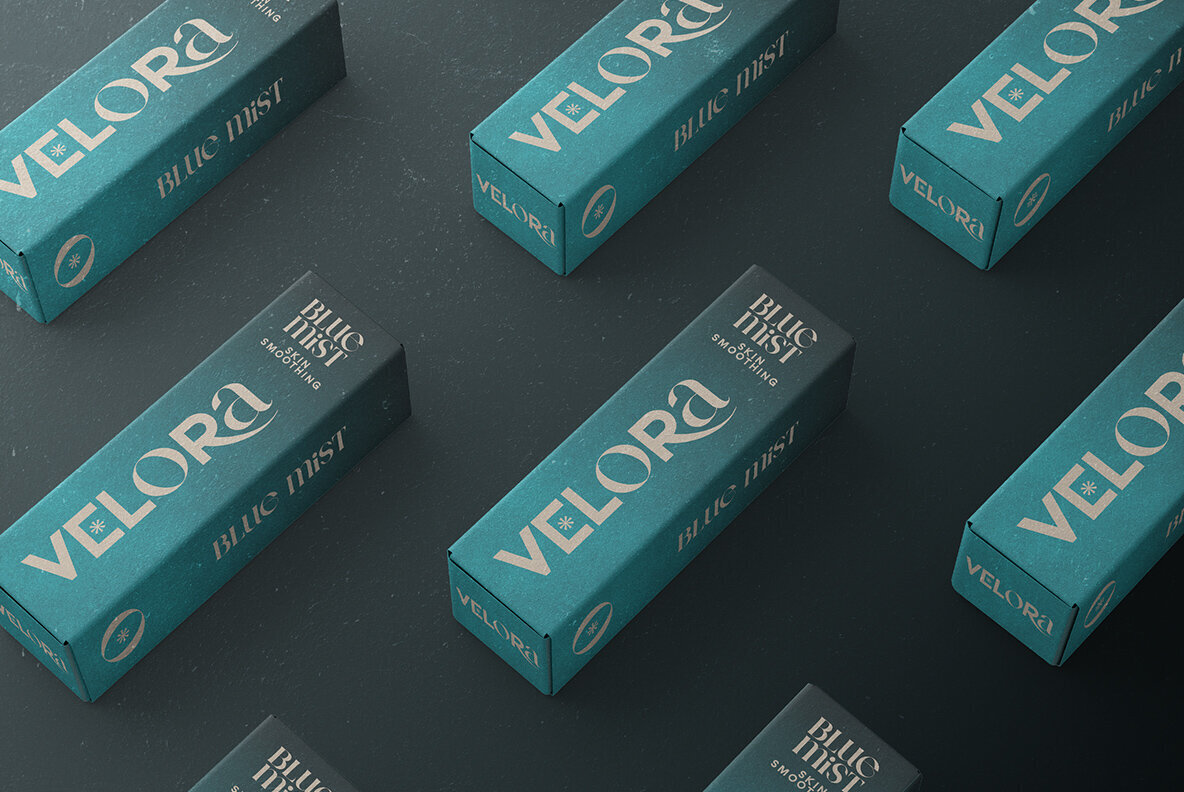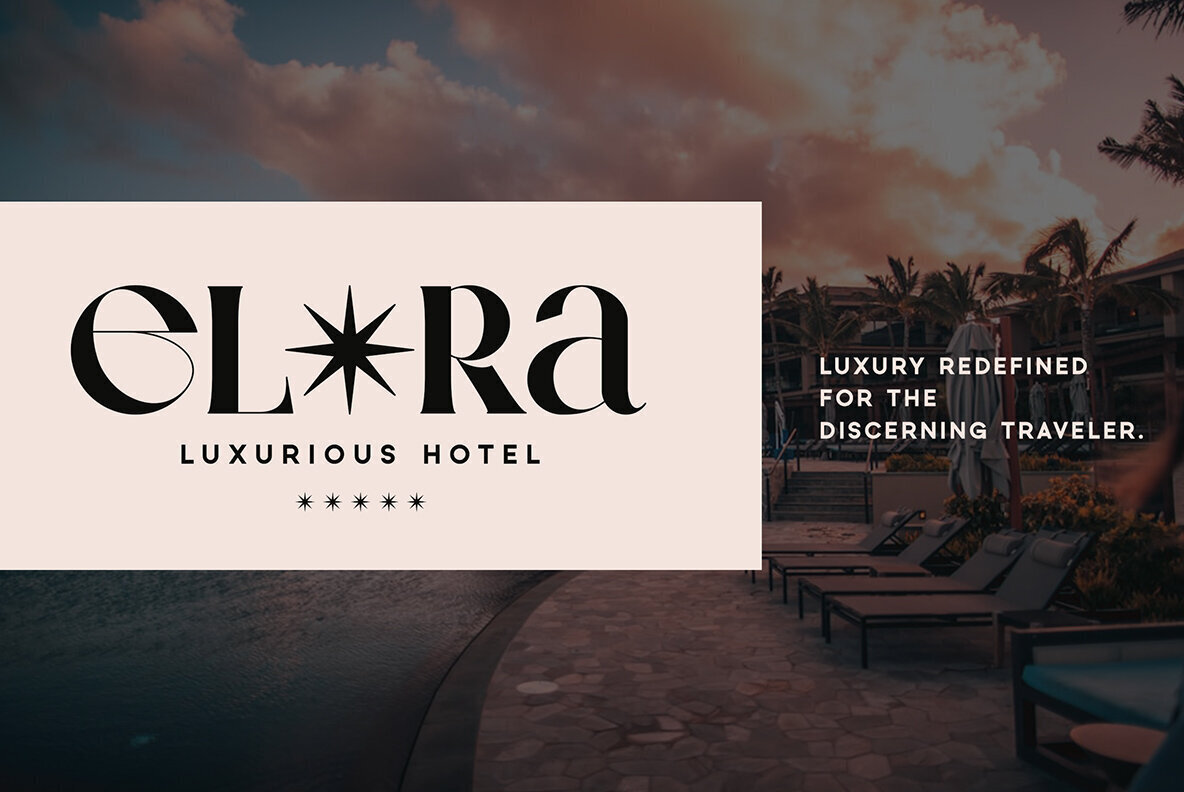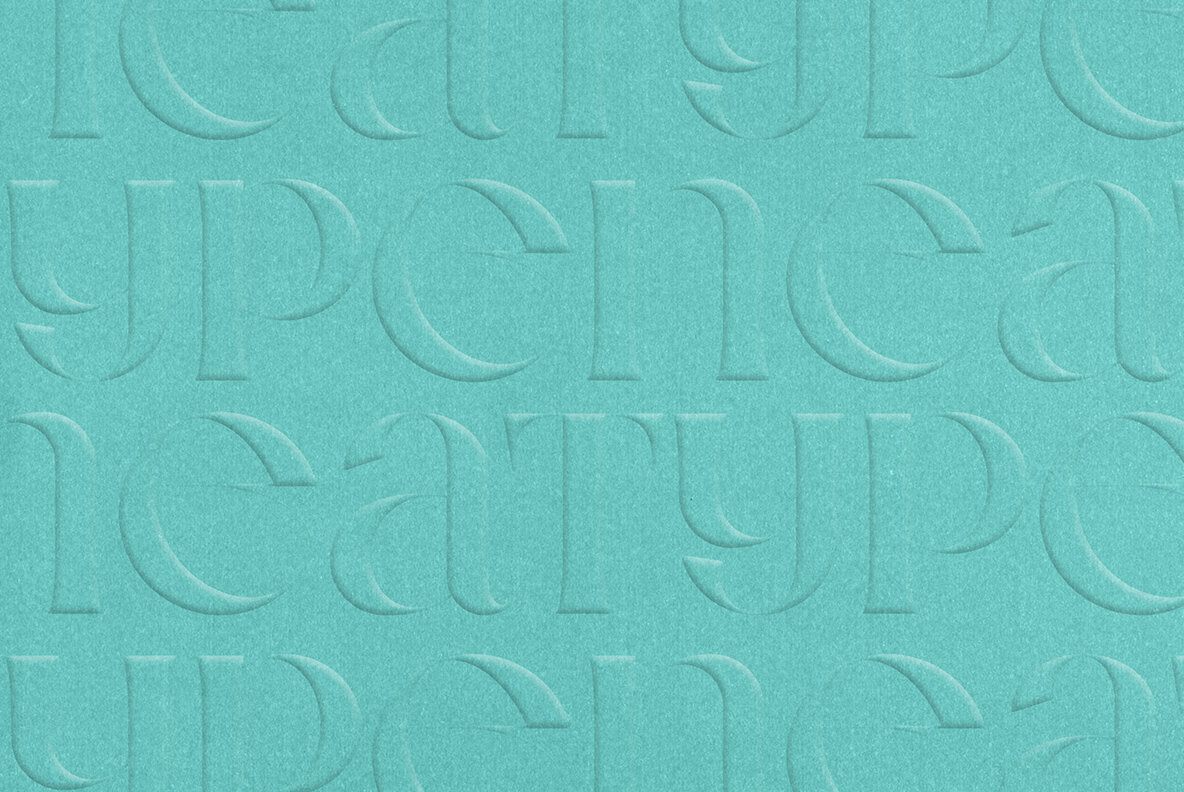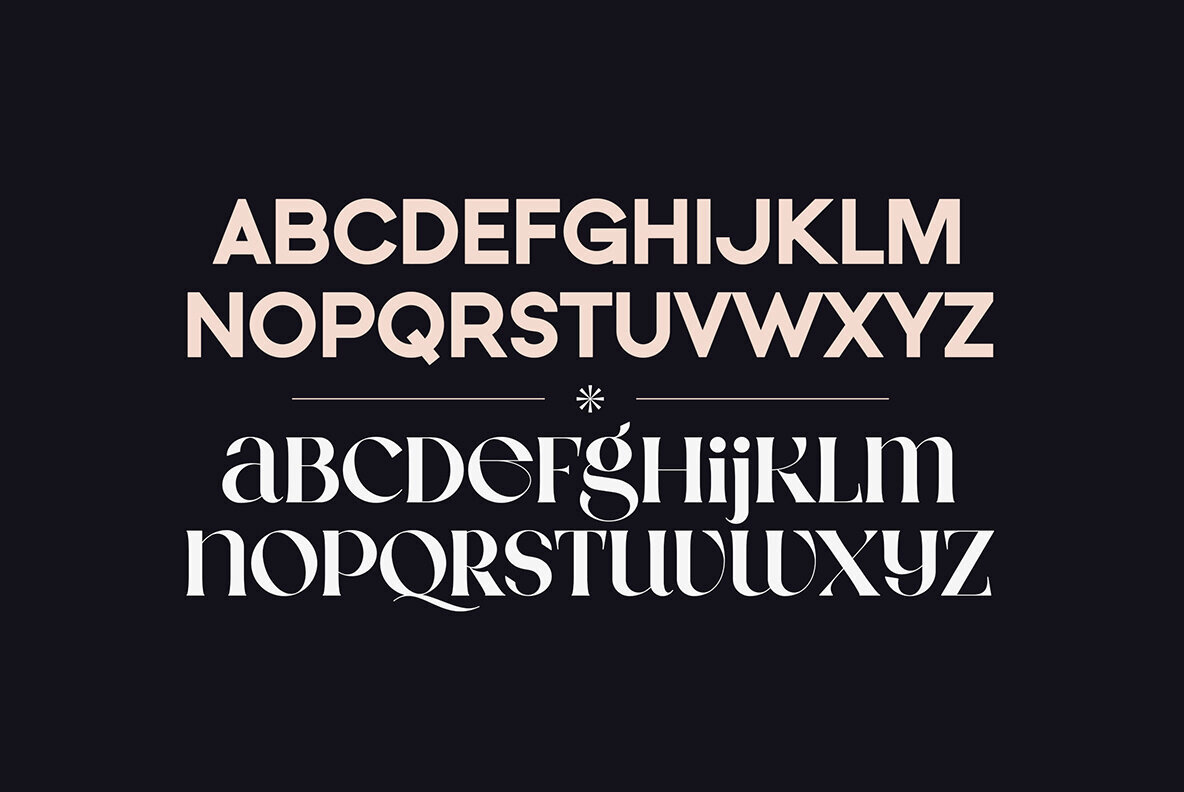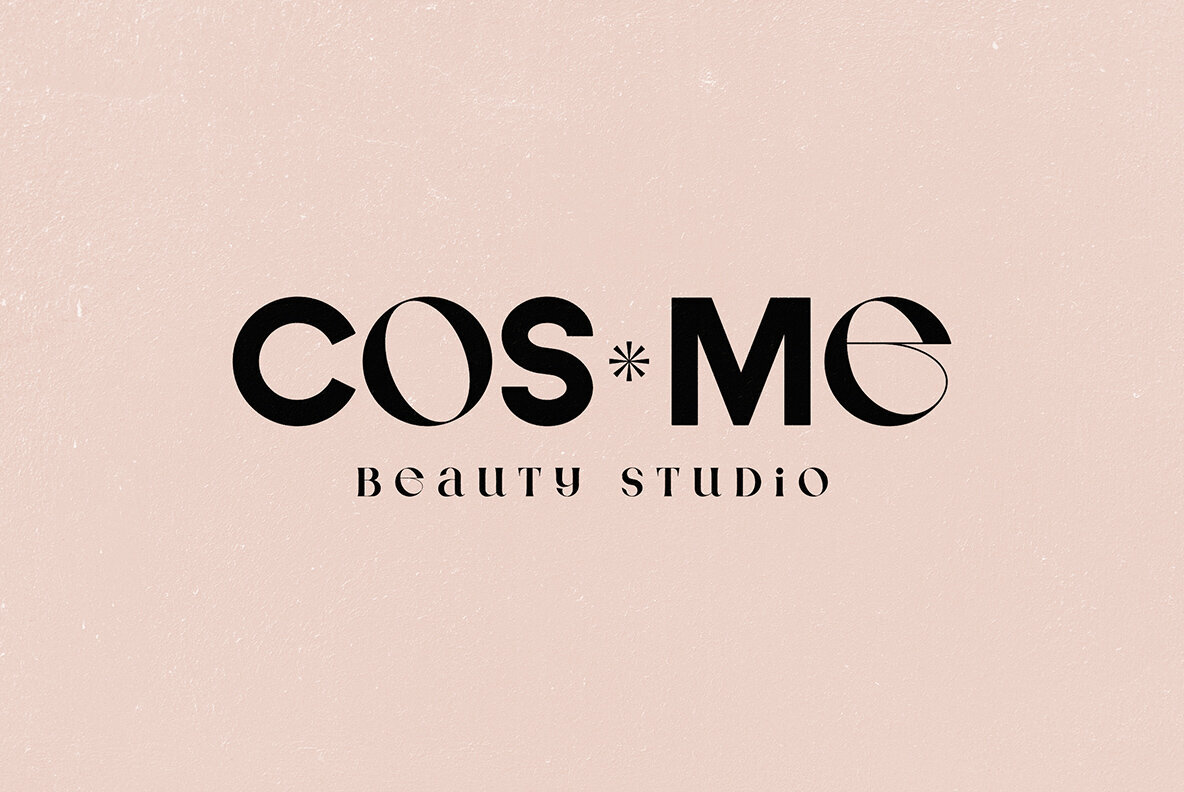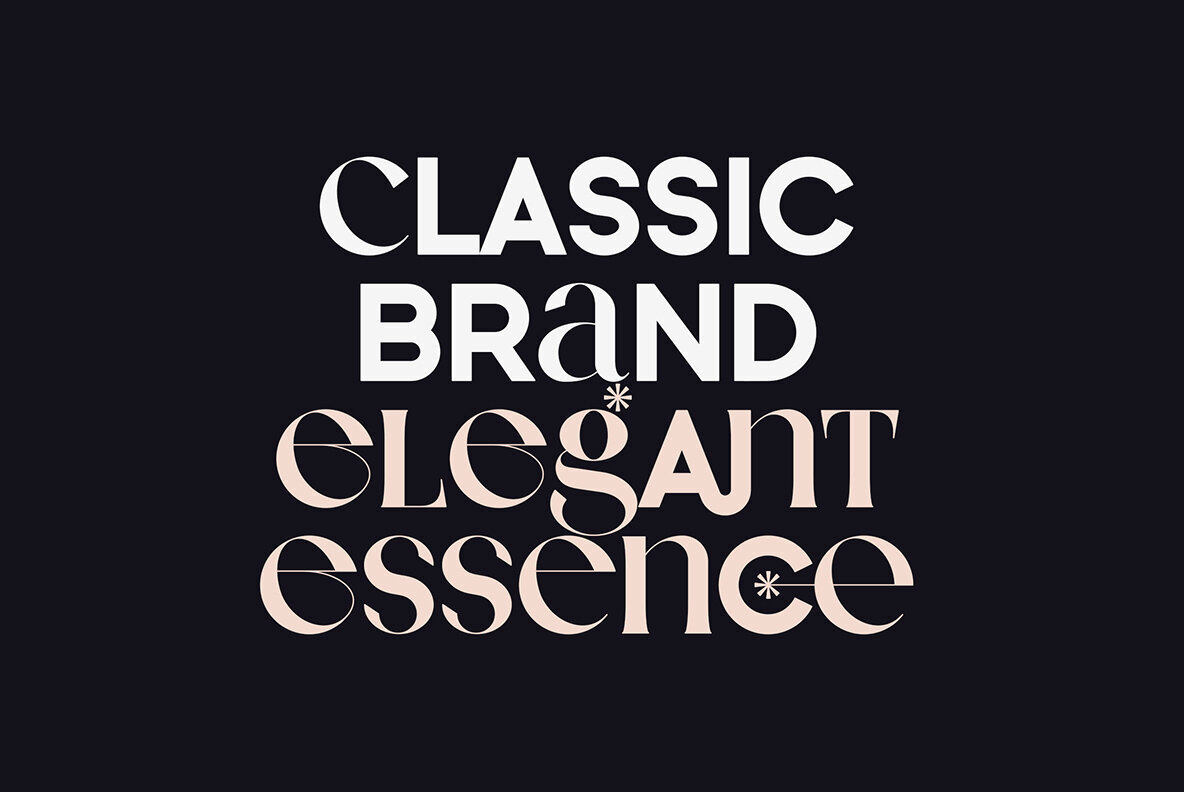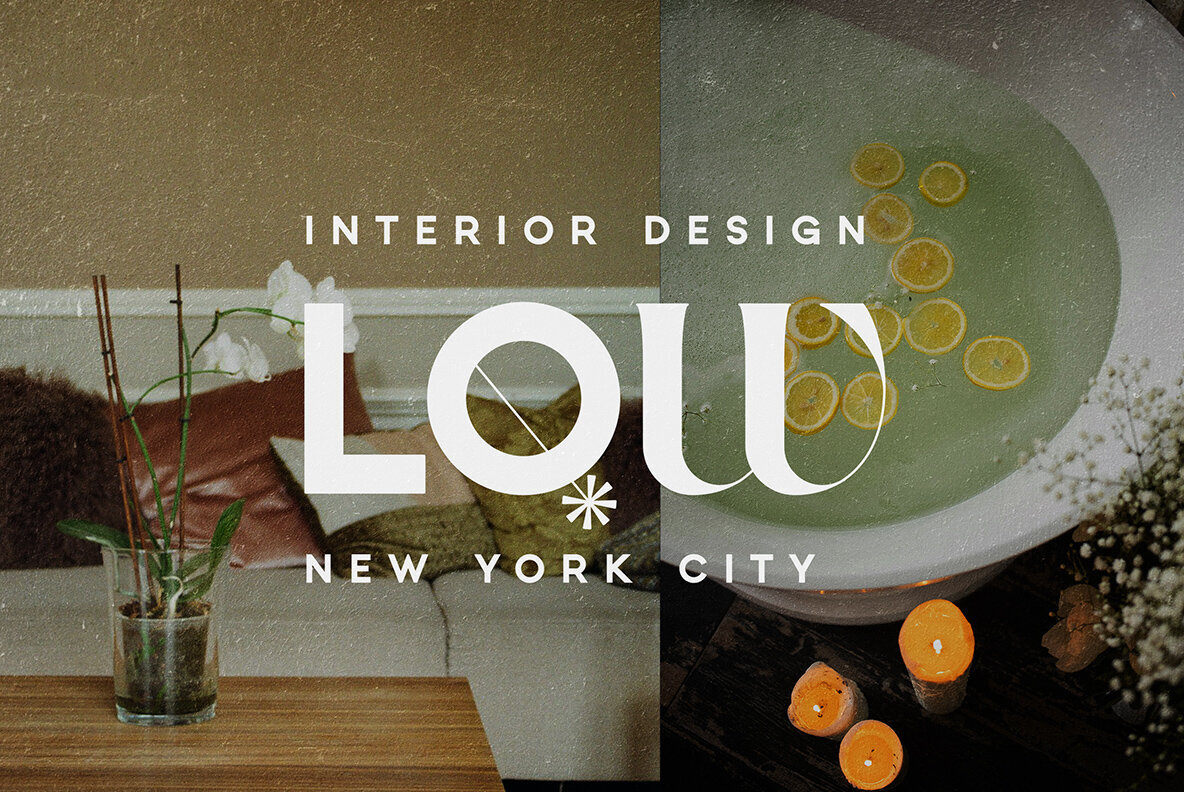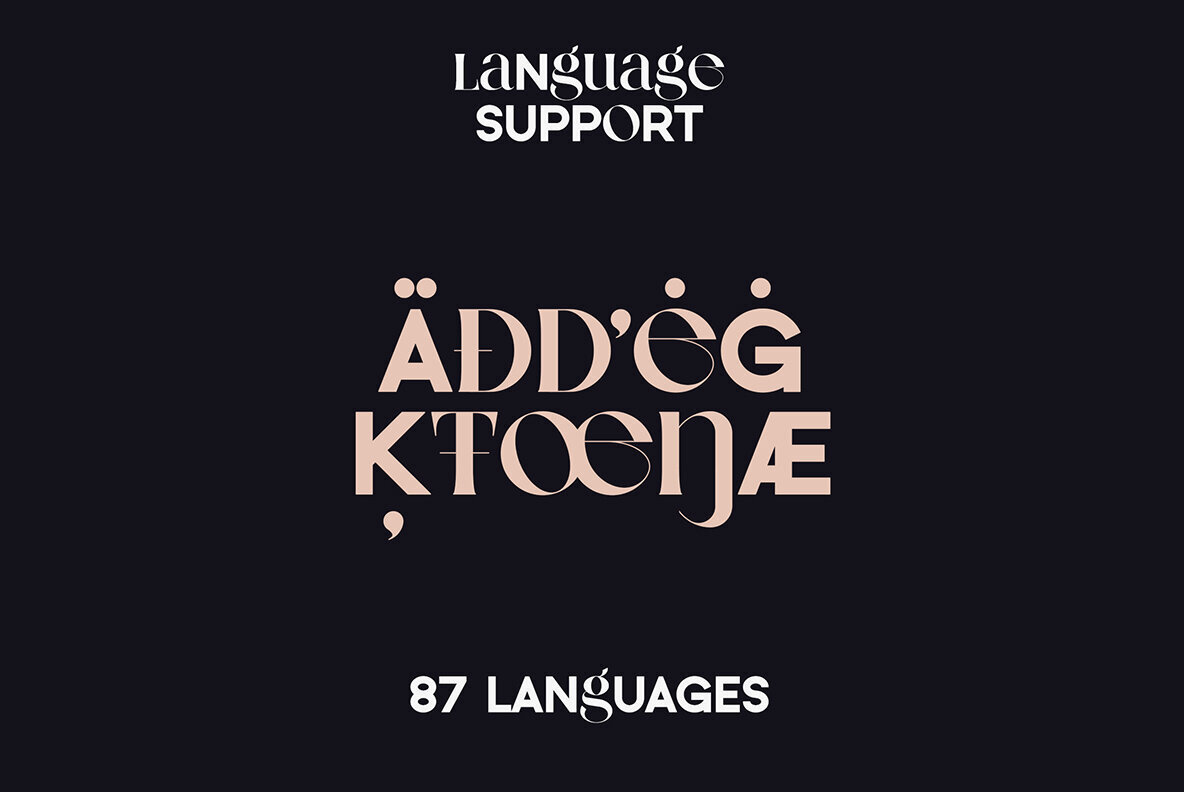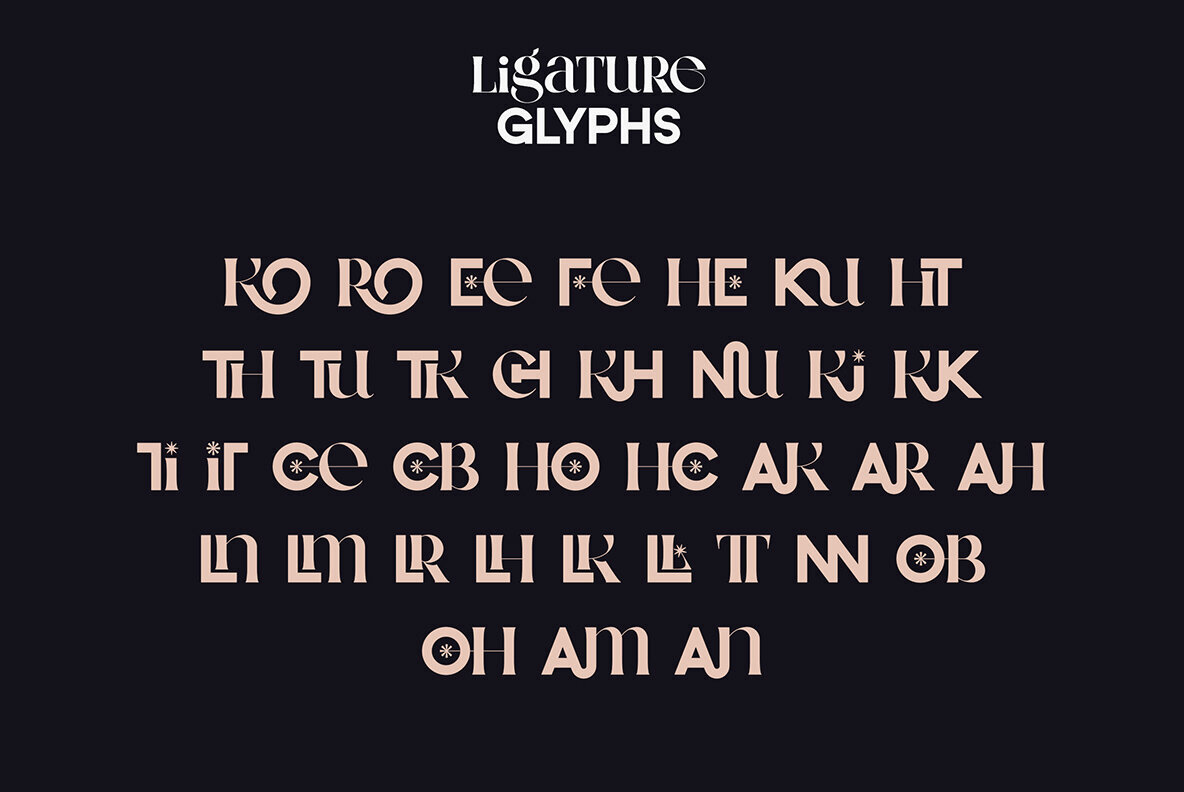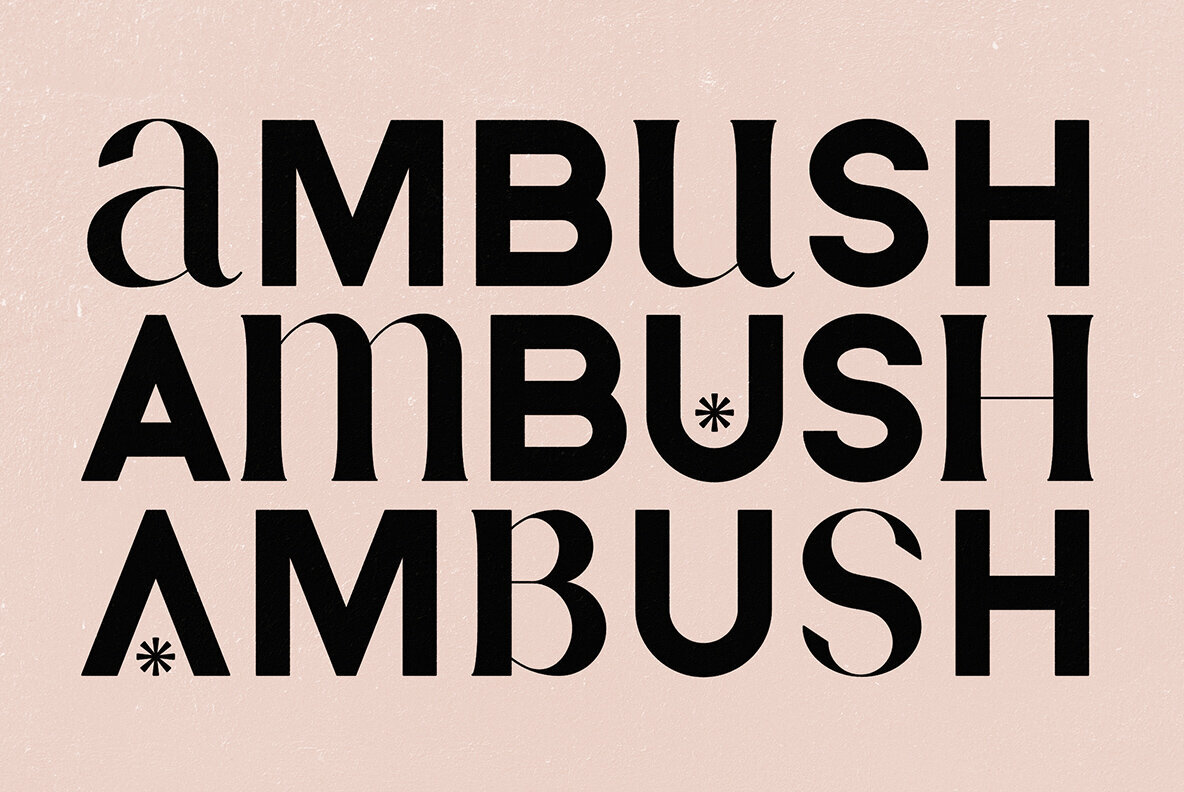
Neat Type Font
Neat Type
Neat Type seamlessly merges the sophistication of serif with the modernity of sans serif in a versatile font. Uppercase letters are depicted in sleek sans serif, while lowercase characters adopt a refined serif style, creating a visually distinctive typeface. Ideal for designers and creatives looking for a fresh, hybrid look, Neat Type features a rich set of alternate and ligature glyphs to expand your design possibilities. This unique typeface is perfect for projects that aim for a stylish and contemporary feel.
Supporting 87 languages, Neat Type is crafted for global usability. Languages supported include Afrikaans, Albanian, Basque, Czech, Danish, Dutch, English, French, German, Italian, Portuguese, Spanish, Swedish, and many more. Whether you are working on branding, editorial, or digital designs, Neat Type provides a versatile and elegant solution. Enhance your typography with a font that delivers both form and function.